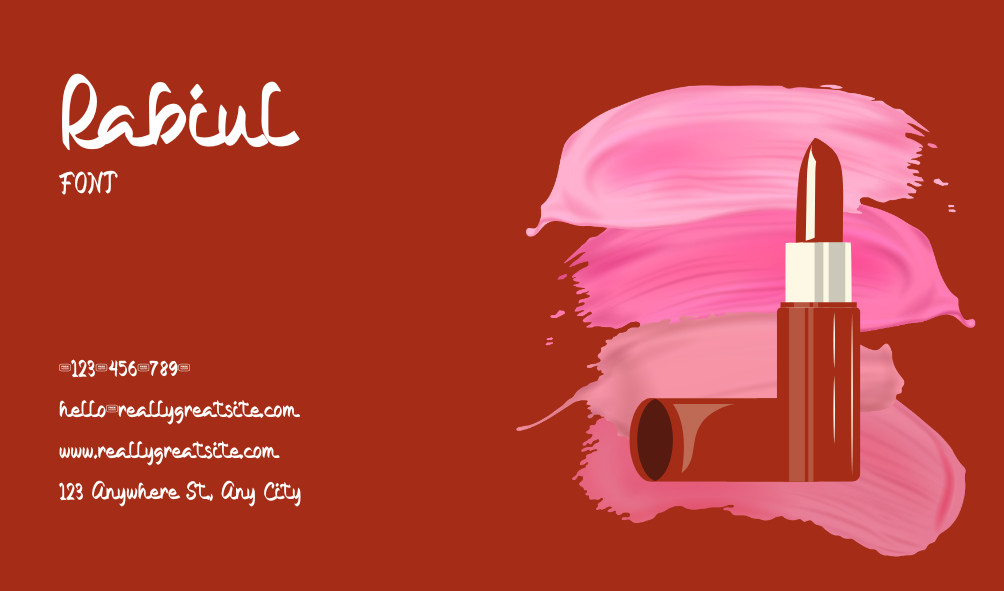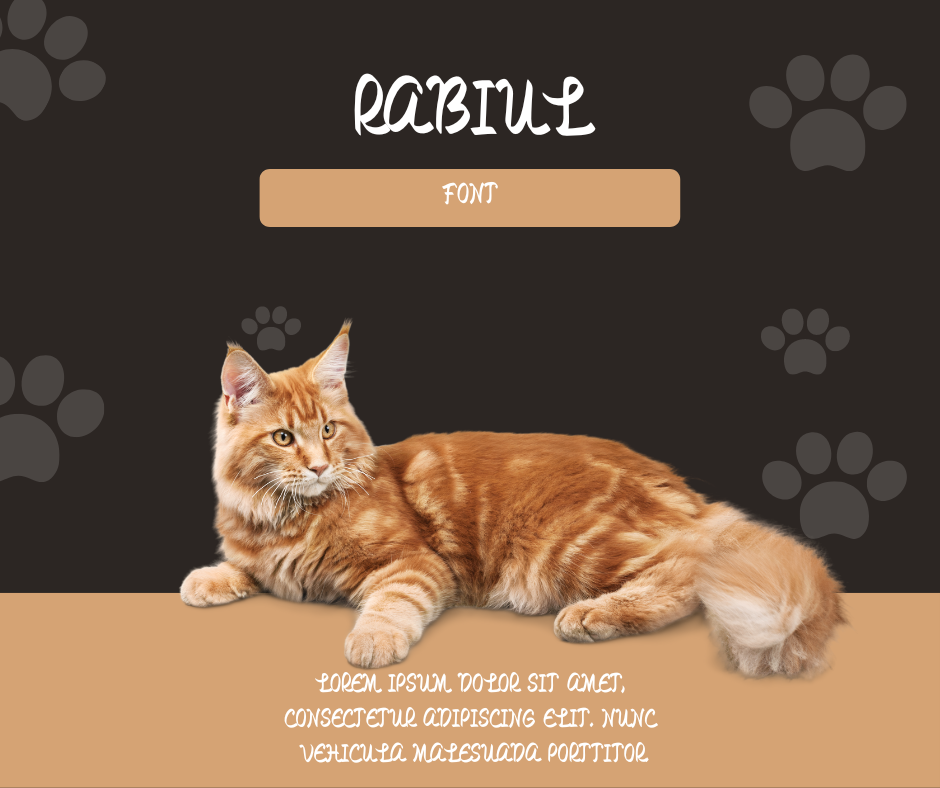
Rabiul is a font that is inspired by the Middle East, but it is also simple enough to be used in modern designs. It is a good font for titles and scroll text, and it is also readable in blocks of copy or headings.
Rabiul